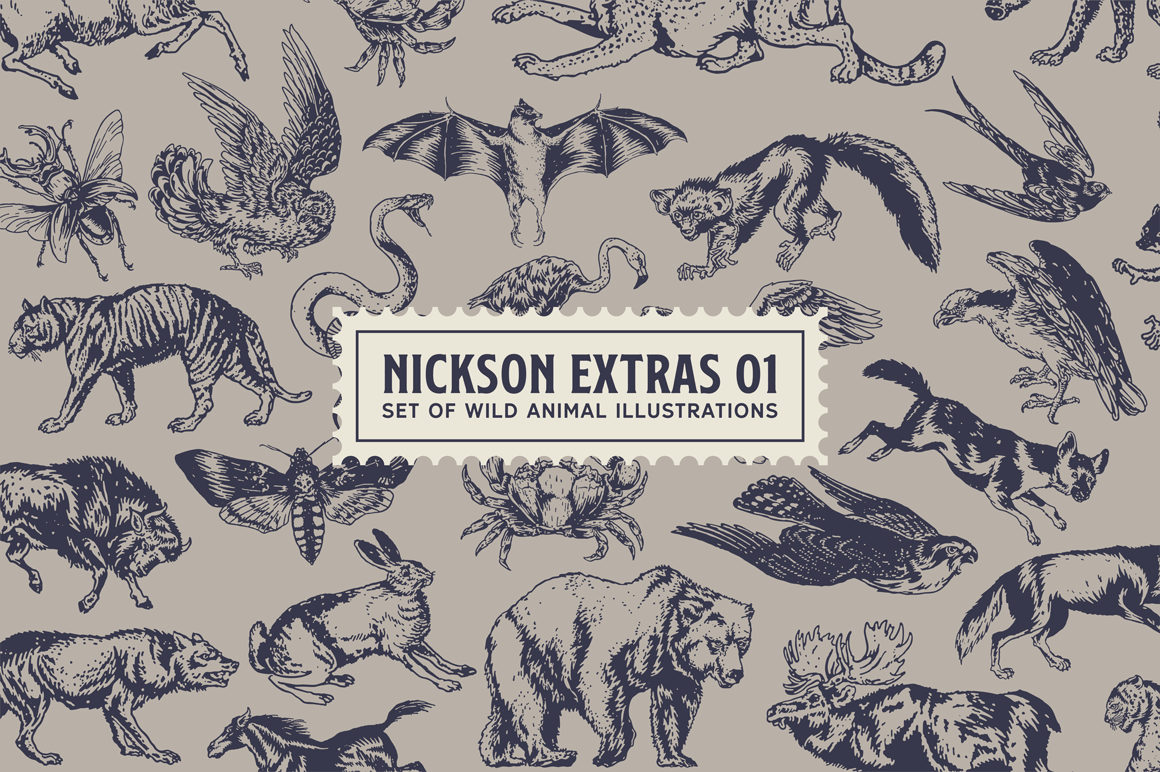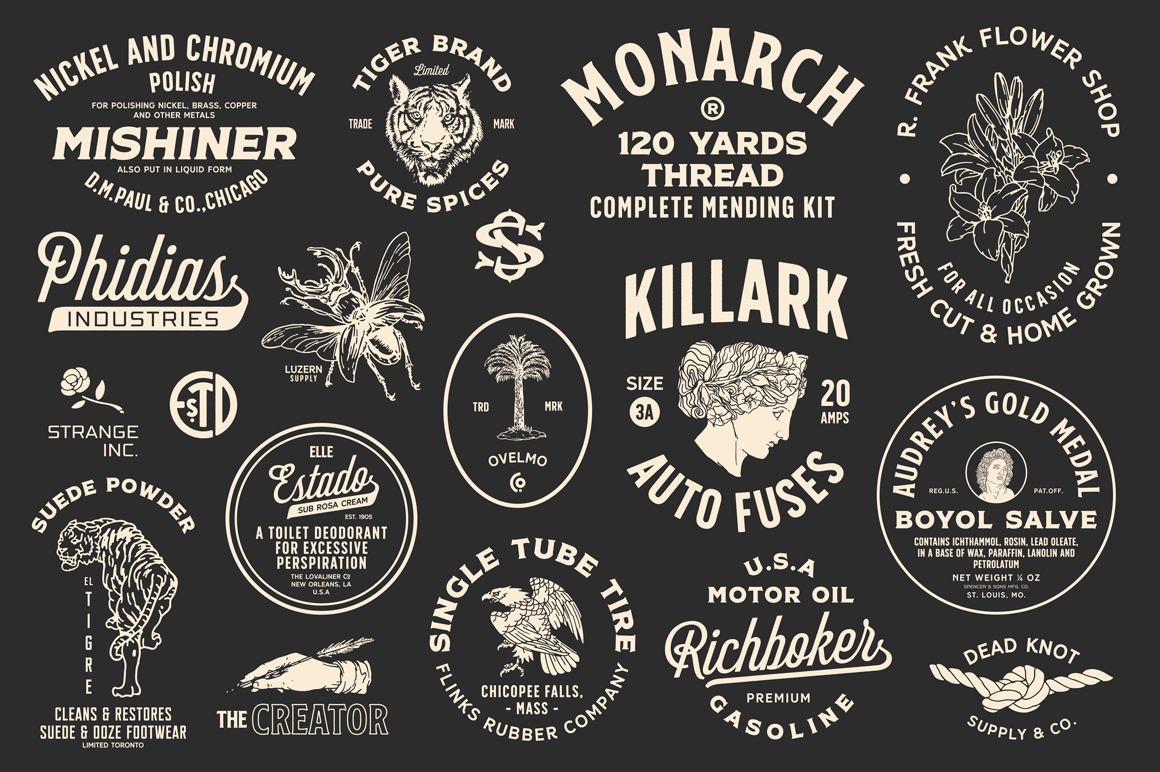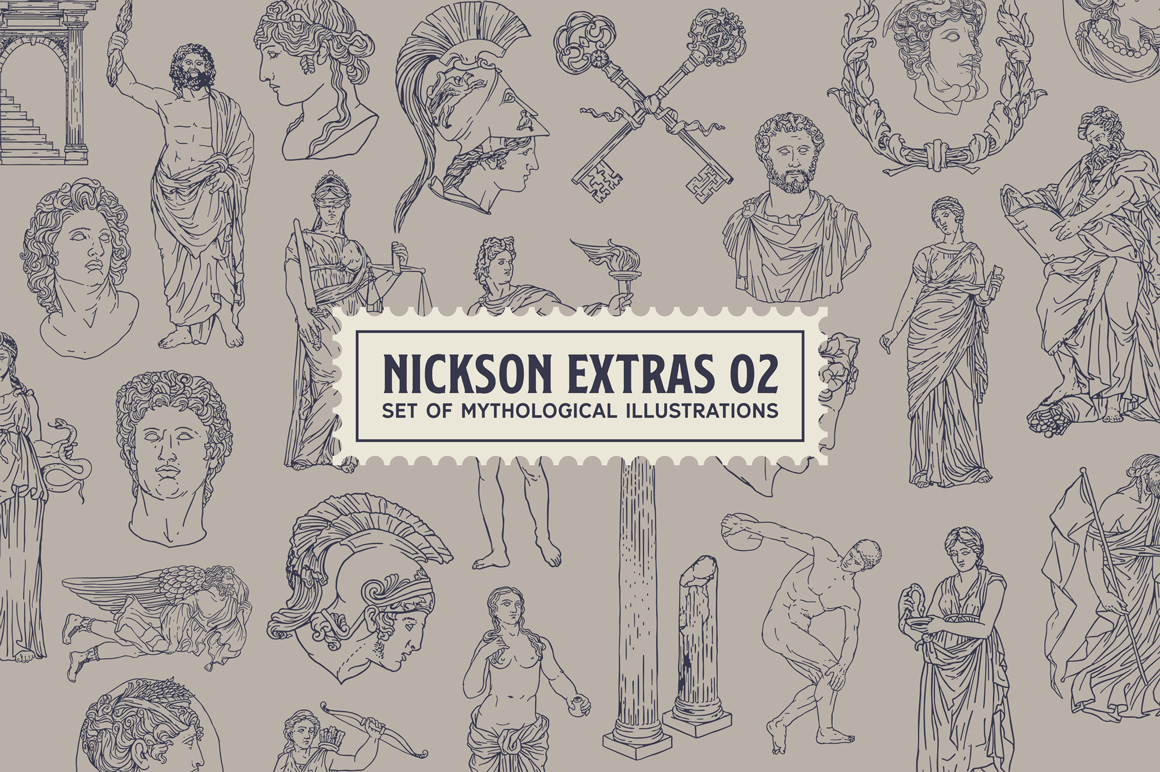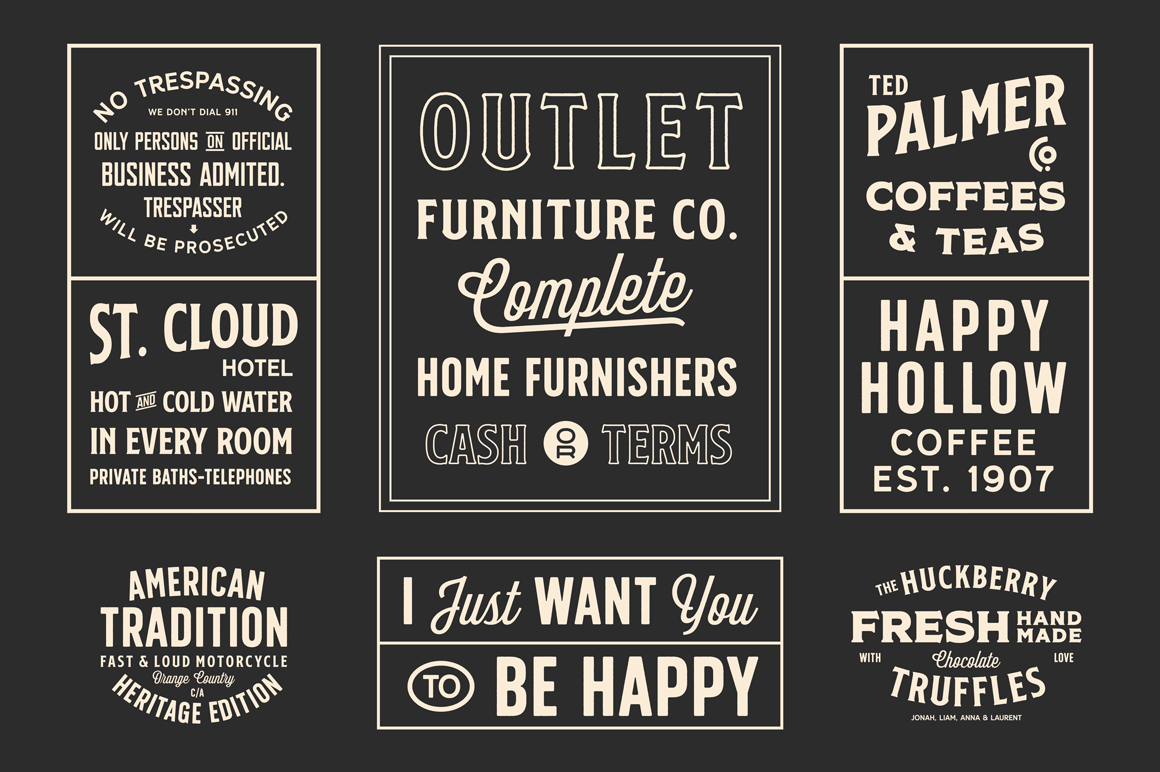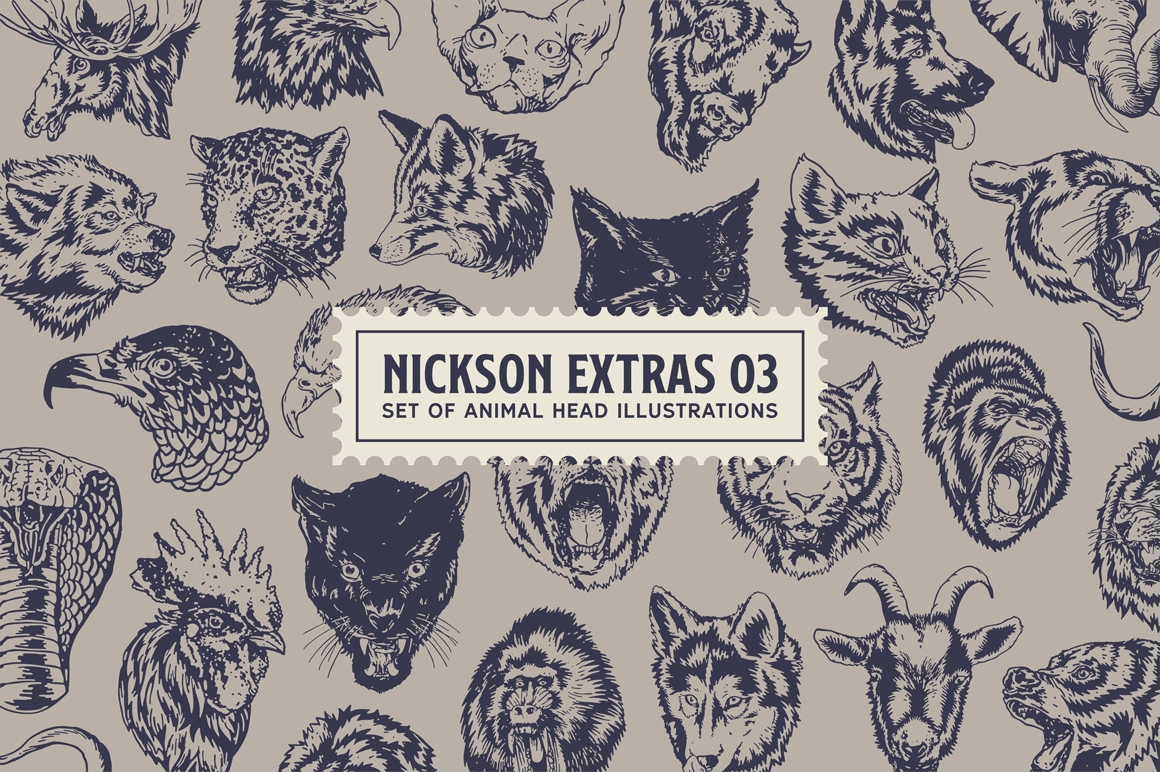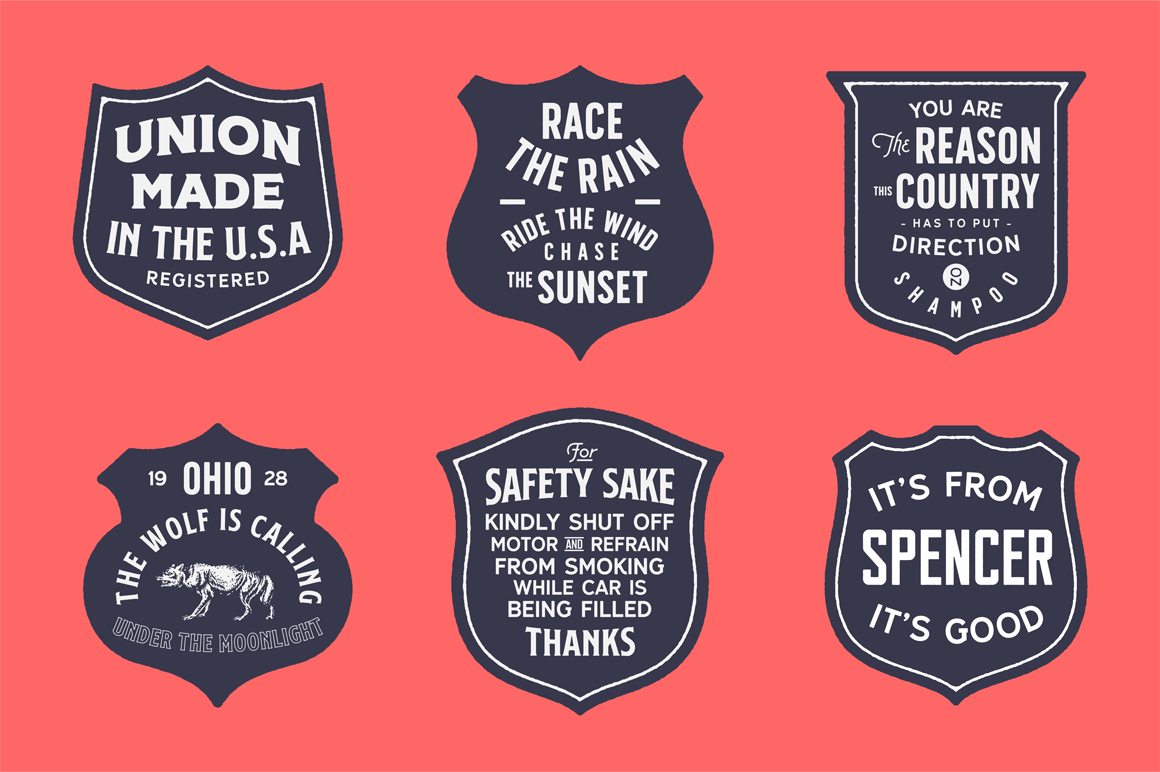
Introduction to Nickson Font
Have you ever found yourself staring at a blank page, trying to come up with the perfect design for your creative project? The words just won’t seem to flow, and the blank space stares back at you like an empty canvas. This is where a high-quality font can be a game-changer. For designers, the right font can make all the difference in bringing your vision to life.
Enter the Nickson Font, a stunning type family that’s packed with 15 different fonts, each with its own unique style that complements the others perfectly. With 7 display fonts, 1 script font, and a treasure trove of 250+ illustrations, badges, labels, and catchwords, this design resource is a must-have for any creative project. And the best part? It’s available for free download, making it a valuable asset for designers on a budget.
Whether you’re working on a personal project or a client assignment, the Nickson Font is sure to bring a touch of sophistication and elegance to your designs. And with its transparent background, you can easily integrate it into any project without worrying about background clutter. So what are you waiting for? Dive into the world of Nickson Font and discover a whole new level of design possibilities.
Key Features of Nickson Font
- High-quality, free font perfect for any creative project
- Unique, modern design with a transparent background, ideal for graphic designers and digital artists
- Comes with a clear and readable character set, suitable for both print and digital design
Honest Review: Nickson Font
I recently stumbled upon the Nickson Font and I’m excited to share my thoughts on this free design resource. As a designer, I’m always on the lookout for high-quality fonts that can elevate my creative projects.
What works well: ✨ The Nickson Font has a unique and modern aesthetic that makes it perfect for contemporary designs. The font is highly legible, making it suitable for body text and titles alike. Additionally, the transparent background feature allows for seamless integration with images and graphics.
Overall, I’m impressed with the Nickson Font’s quality and versatility. While it may have some limitations, it’s a valuable addition to any designer’s toolkit. If you’re looking for a high-quality font for your creative project, the Nickson Font is definitely worth checking out.
- Unique and modern aesthetic
- Highly legible
Introduction to Nickson Font
The Nickson Font is a high-quality, free design resource ideal for creative projects. Its transparent background makes it versatile for various applications.
Tips for Getting the Most Out of Nickson Font
For optimal results, use Nickson Font in conjunction with other high-quality design resources. Experiment with different font sizes, colors, and arrangements to achieve a unique look.
Common Use Cases for Nickson Font
The Nickson Font is suitable for a variety of projects, including graphic design, digital art, and typography-based art. Its transparent background makes it ideal for overlaying text on images or other design elements.
Q: Is the Nickson Font suitable for print or digital use?
The Nickson Font is designed for both print and digital use. Its high-quality design ensures crisp and clear rendering on various devices, including screens and paper. You can use it for a wide range of creative projects, from branding and marketing materials to digital interfaces and publications.